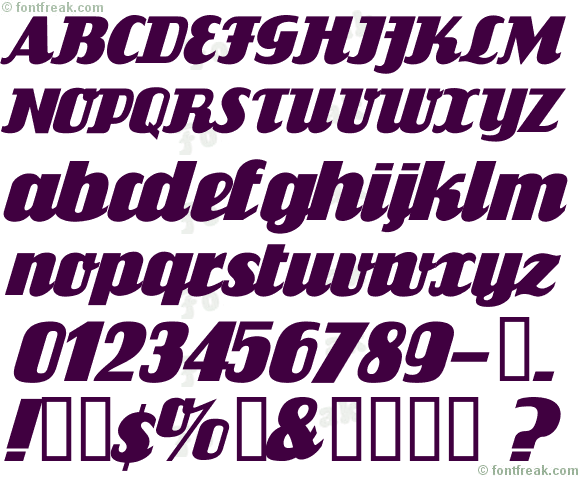
FlandersRide Italic
About FlandersRide Italic
FlandersRide Italic, designed by Mickey Rossi, is a striking display font that offers a unique blend of personality and flair. This italicized typeface features bold, skewed letterforms set at a 60-degree angle, making it ideal for attention-grabbing headlines and creative projects. The stroke weight is robust, providing a confident presence, while the moderate contrast adds a level of sophistication. The spacing is well-balanced, allowing for clarity and readability, even at larger sizes, which enhances its versatility.
This font is perfect for a variety of use cases, including movie posters where dynamic visuals are essential, wedding invitations that demand a touch of elegance, and restaurant menus looking to convey a sense of style. Additionally, it can be effectively used in branding materials for small businesses, helping to create memorable logos and promotional graphics. Graphic designers and content creators will particularly appreciate its ability to stand out in both digital and print formats, making it an excellent choice for any creative endeavor.
Targeted towards graphic designers, small business owners, and content creators, FlandersRide Italic is a font that encourages creativity and individual expression. Its unique character and stylish appearance make it an asset in any designer's toolkit.
What sets FlandersRide Italic apart is its boldness combined with a playful elegance. The skewed design adds a sense of movement, making it an ideal choice for projects that seek to capture attention and evoke emotion. With the FlandersRide Italic font free download available, you can easily incorporate this distinct typeface into your work, infusing your designs with a fresh and dynamic aesthetic.